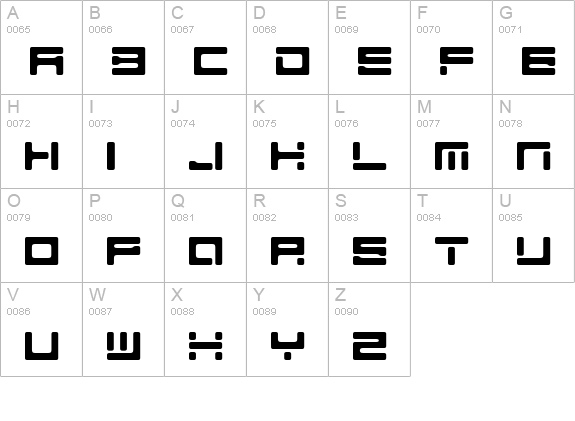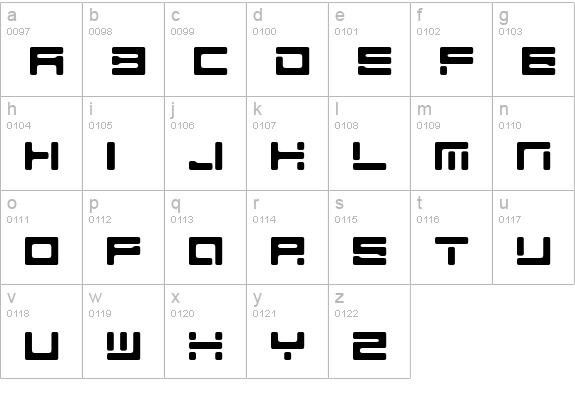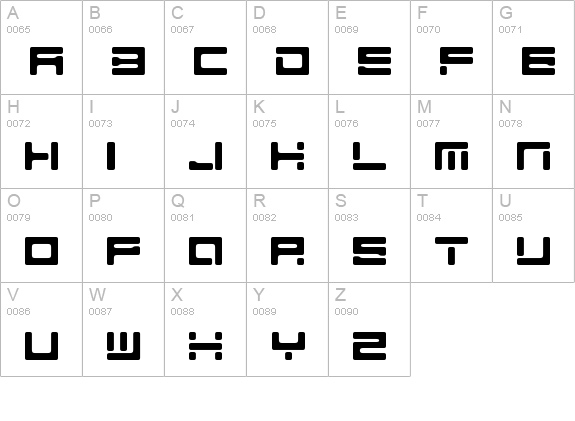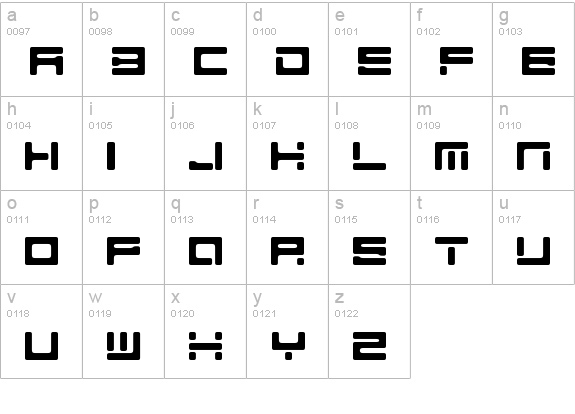
Teio Font Details
Teio is a free for personal use font in the Modern > Futuristic category. It has been downloaded 168 times and is available for Windows, Mac and Linux.
Introducing the stunning and versatile Teio font, a contemporary typeface that combines elegance with a touch of modernity. With its sleek lines, refined curves, and impeccable letterforms, Teio is the perfect choice for any design project that craves sophistication and style. This font offers a wide range of weights and styles, making it suitable for various applications. Whether you're designing a logo, creating a magazine layout, or crafting eye-catching packaging, Teio has the flexibility to adapt to your creative vision. One of the most remarkable features of Teio is its extensive character set, which includes multilingual support, punctuation marks, numerals, and special glyphs. This ensures that your designs can be easily communicated to audiences around the world. But what truly sets Teio apart is the fact that it is free. Yes, you read that right! Teio font is freely available to download at FontsMarket.com. Now you can enjoy the beauty and versatility of this incredible typeface without breaking the bank. So why wait? Embrace the elegance of Teio font and elevate your designs to new heights. Download it today from FontsMarket.com and let your creativity soar.